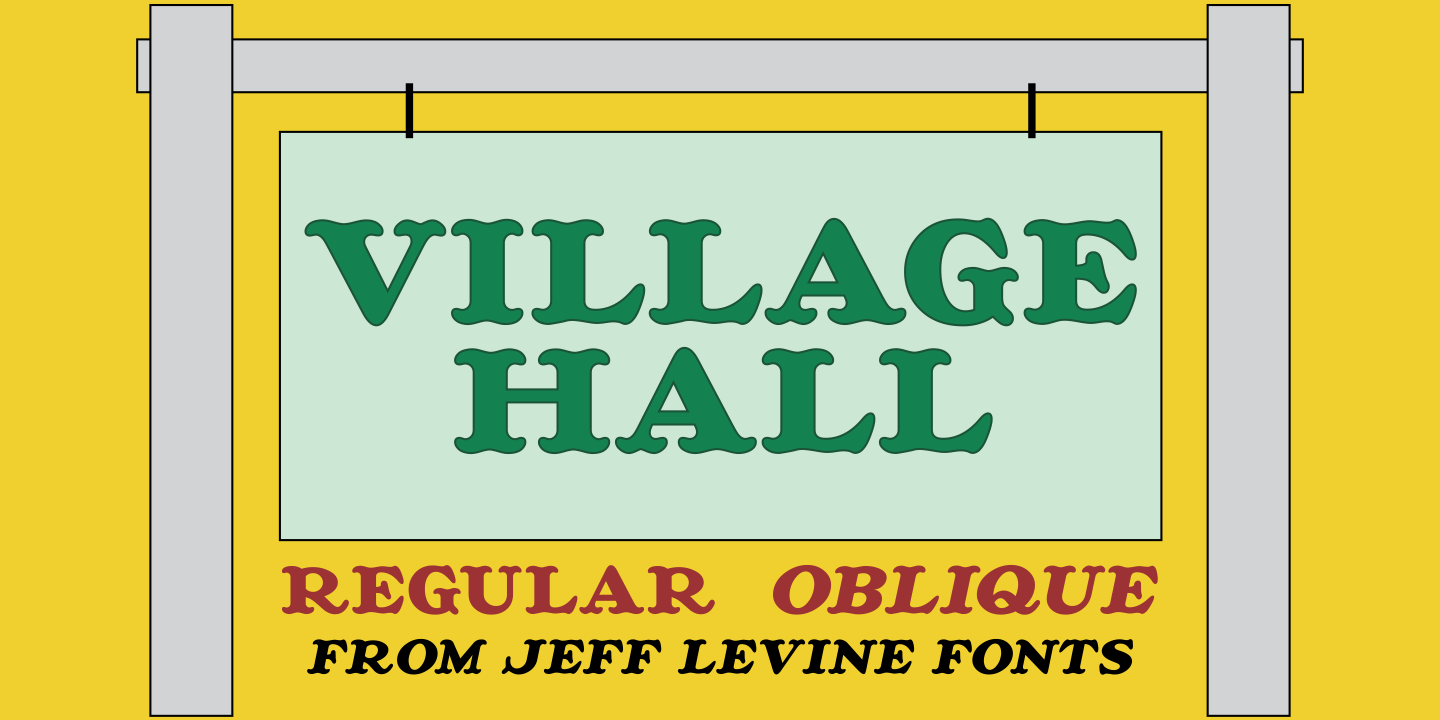
The Village Hall JNL Font is incredibly versatile, making it an excellent choice for a wide range of design projects that aim to evoke a classic, community-focused, and often subtly formal aesthetic, reminiscent of historical public signage or civic documents. Imagine it gracing the signs for local historical societies, adding an authentic, dignified feel to community event posters, or defining the traditional branding for town newsletters. It's also perfect for crafting unique logos for local businesses with a vintage appeal, designing clear and straightforward titles for historical preservation projects, or enhancing the visual appeal of anything that needs to convey tradition, civic pride, and an enduring sense of place. Its often clear, well-proportioned, and subtly aged or rustic letterforms make it ideal for conveying official information with a touch of nostalgia.
What makes the Village Hall JNL Font so exciting is its ability to instantly infuse any design with a sense of local heritage and dependable familiarity. It's not just a typeface; it’s a visual echo of small-town charm and enduring community spirit, bringing a grounded and authentic feel to your message. Its unique letterforms, often characterized by a sturdy yet inviting presence, stand out, offering a refreshing departure from overly modern or decorative fonts. This font provides a crisp, impactful visual texture that adds depth, sophistication, and an undeniable sense of timeless reliability to any design, ensuring your message is not just seen, but truly felt with a sense of practical precision and local character.
The Village Hall JNL Font family, like many of designer Jeff Levine's fonts, typically focuses on a specific stylistic niche, often inspired by historical typography and signage. While specific variations can differ, you can typically expect to find regular and possibly bold versions, sometimes with unique alternate characters or specific symbols that enhance its utilitarian or retro-civic appeal. These features allow designers to experiment with different visual effects, further emphasizing the font's distinctive, functional aesthetic and providing ample creative freedom for impactful display uses, especially in contexts related to community, history, or local governance.
For those looking to infuse their designs with a strong sense of traditional clarity, vintage authenticity, and undeniable functional appeal, the Village Hall JNL Font Free Download is an invaluable resource. This distinctive typeface, with its precise structure and captivating visual impact, will undoubtedly elevate your creative projects and make a truly memorable impression.